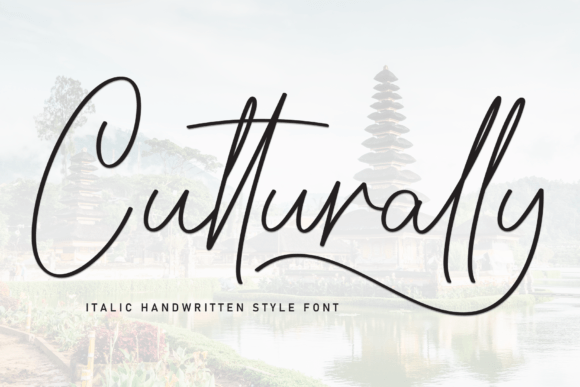
Feast your eyes upon Culturally Font, the script font family that will unleash your creativity and make your designs shine. Crafted by the expert hands of Roronoa Zoro.S.P.D, this font family is an artistic masterpiece that captures the essence of Halloween and brings it to life before your eyes.
Culturally Font is not just a collection of letters; it's an experience. Its swirling lines and elegant curves evoke a sense of mystery and allure, transporting you to a realm where anything is possible. Let your imagination run wild as you create spellbinding Halloween posters that are sure to cast a magical spell on all who see them.
With Culturally Font, you'll have the power to conjure up hauntingly beautiful designs that will leave an unforgettable impression. Picture the perfect Halloween poster, its letters dripping with a sinister charm, its words casting an eerie glow against the night sky. Culturally Font will be the haunting heartbeat of your masterpiece, setting the tone for a night of tricks, treats, and unforgettable memories.
But Culturally Font's enchantment extends far beyond Halloween. Its versatility and captivating aesthetic make it the perfect choice for a wide range of projects. Use it to craft whimsical wedding invitations that dance with joy, design social media posts that pop with personality, or create logos that leave a lasting impact. Let Culturally Font be your muse, guiding you towards design triumphs that will captivate and inspire.
With Culturally Font, you'll embark on a design journey like no other. Its PUA Character – allows you to access the entire font without the need for additional design software, making it accessible and user-friendly for designers of all skill levels. Experience the joy of creating without limitations, knowing that Culturally Font is your steadfast companion, ready to transform your ideas into reality.
Culturally Font is more than just a tool; it's a gateway to a world of endless creative possibilities. Its enchanting script will cast a spell on your designs, captivating your audience and leaving them spellbound. So don't just download Culturally Font; embrace it, let it flow through your veins, and watch as your creativity flourishes like never before.